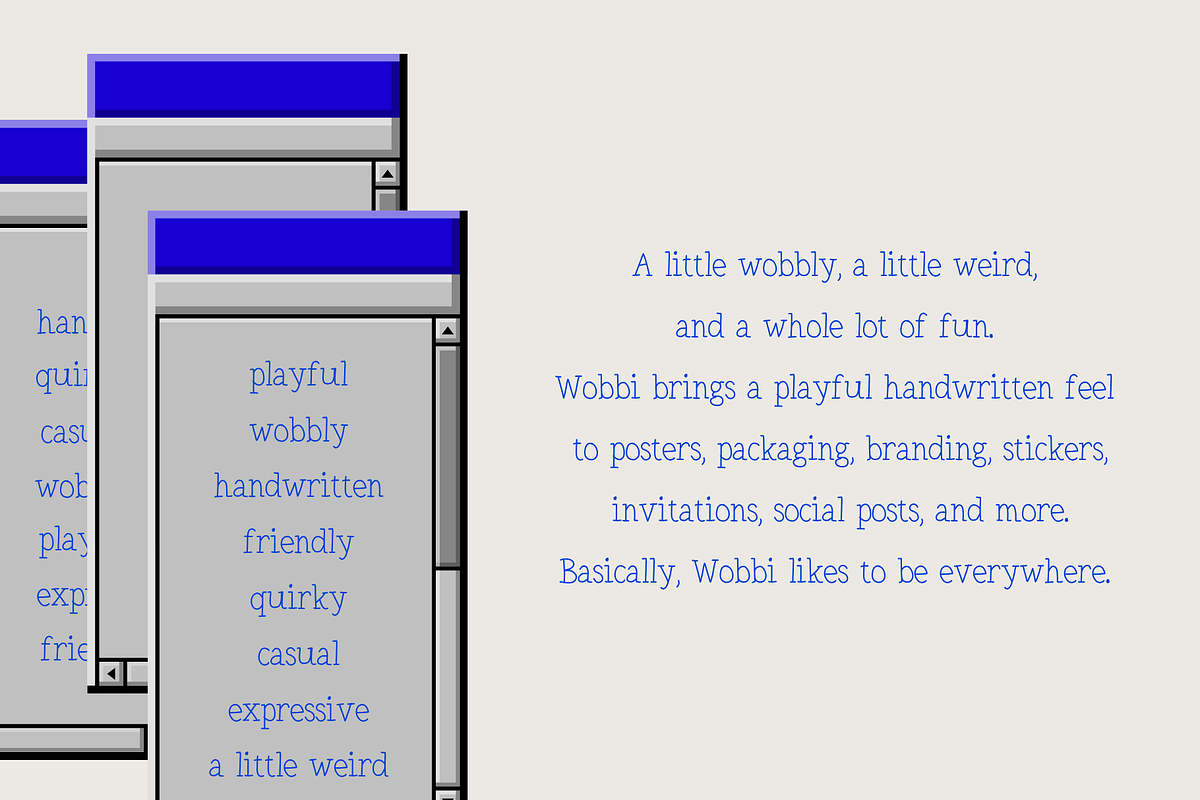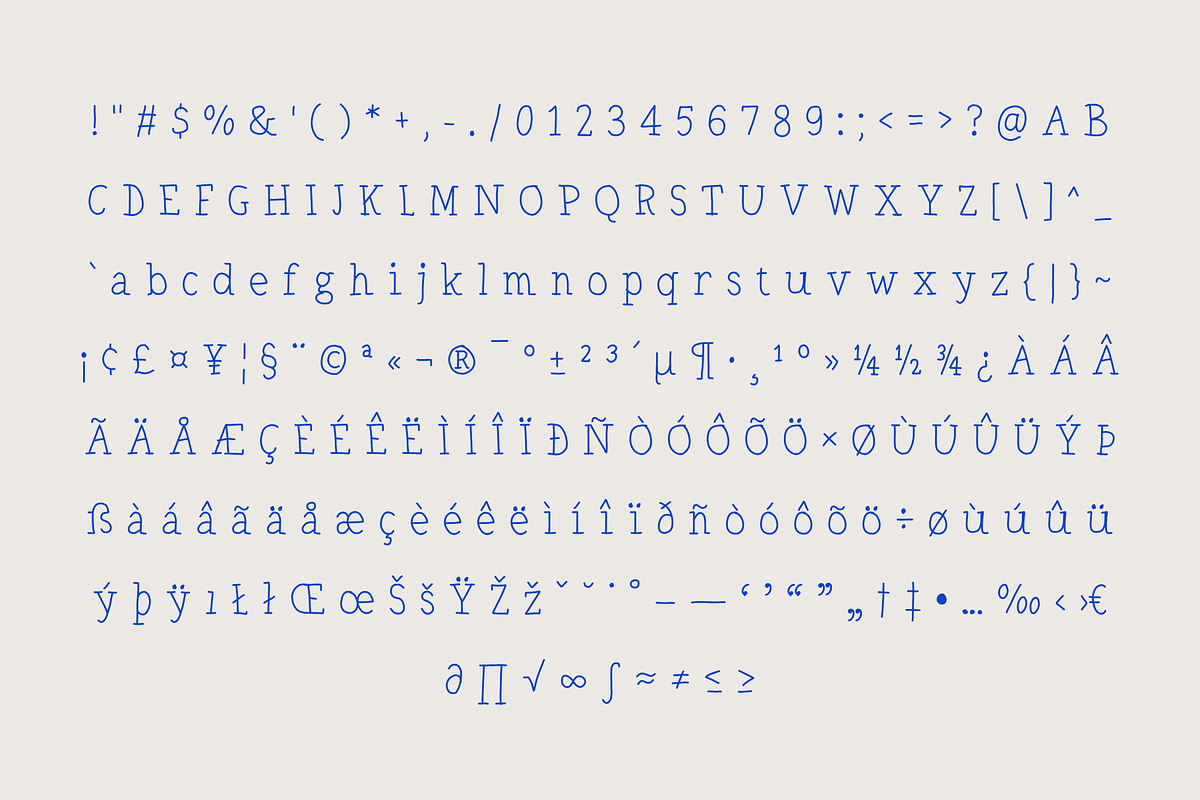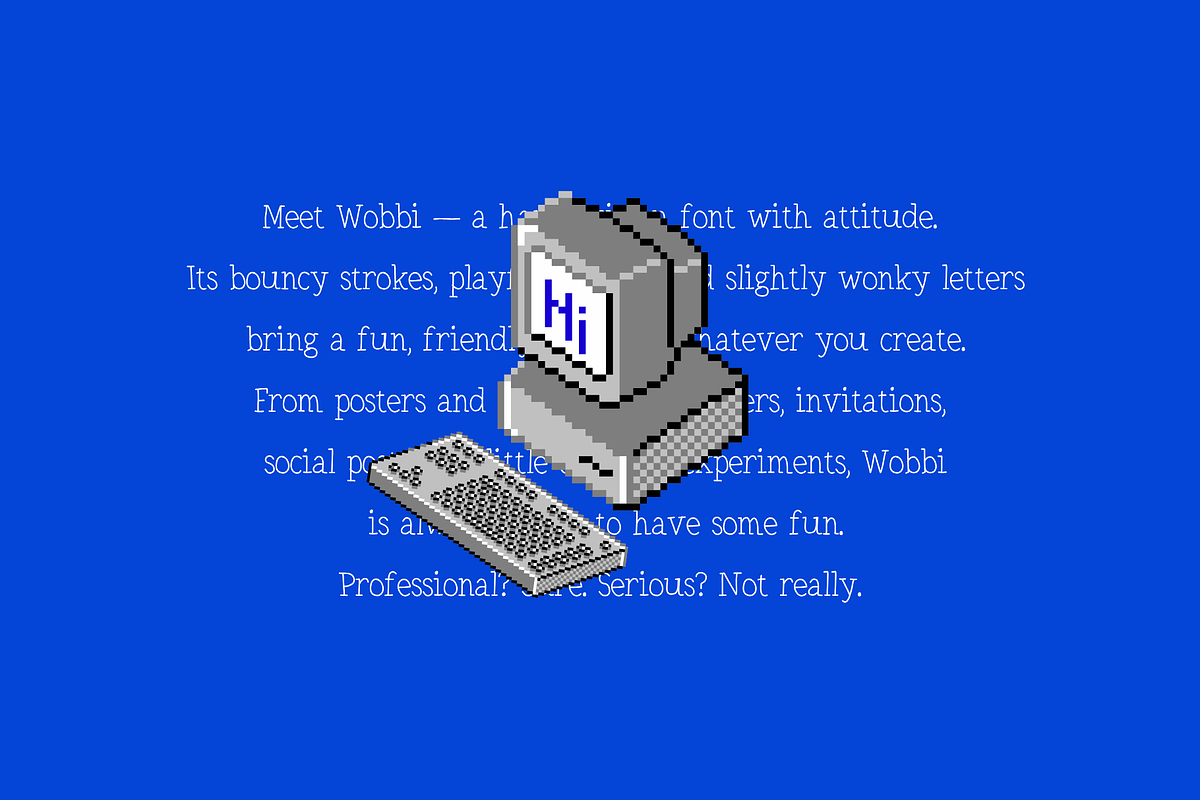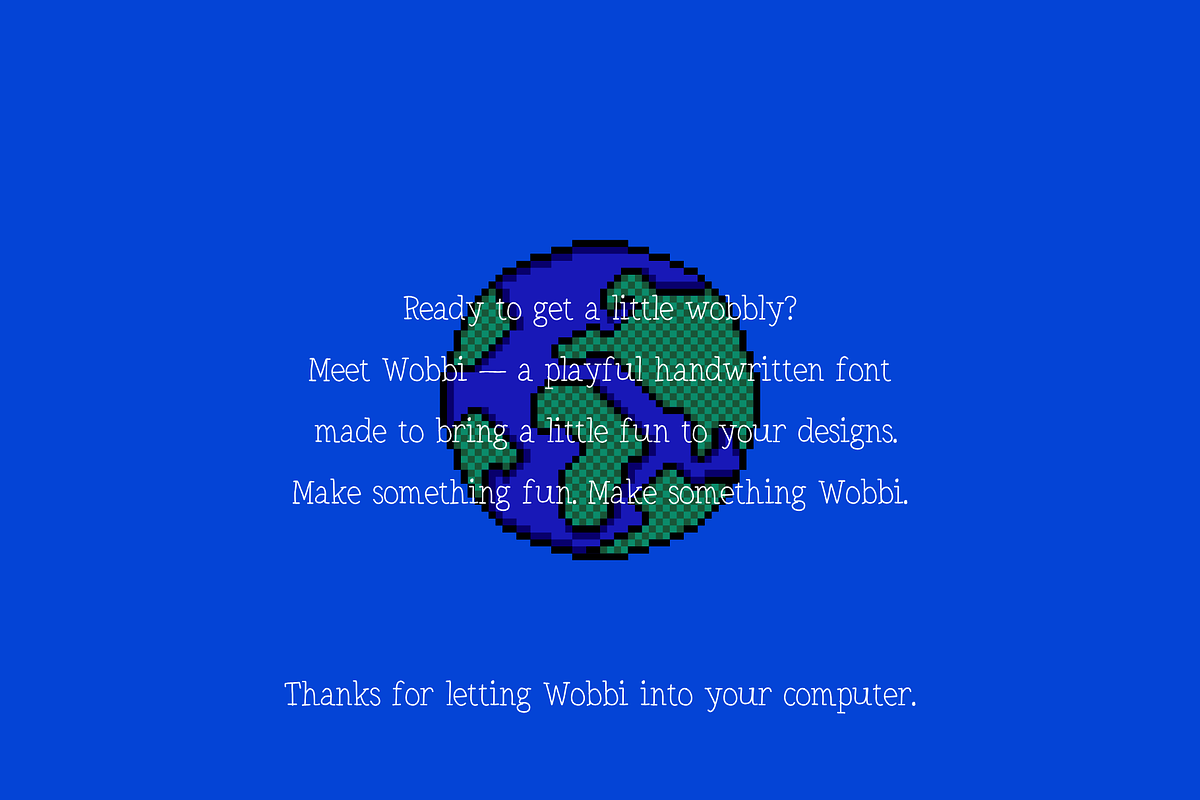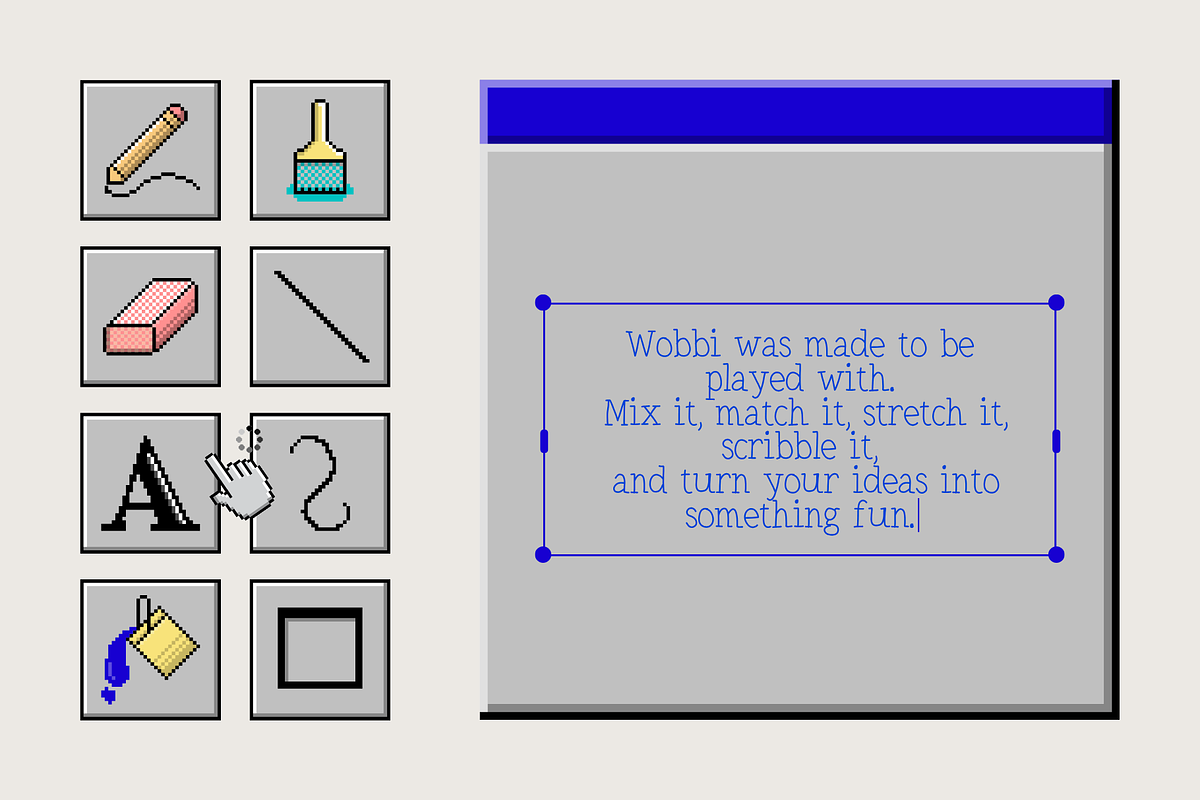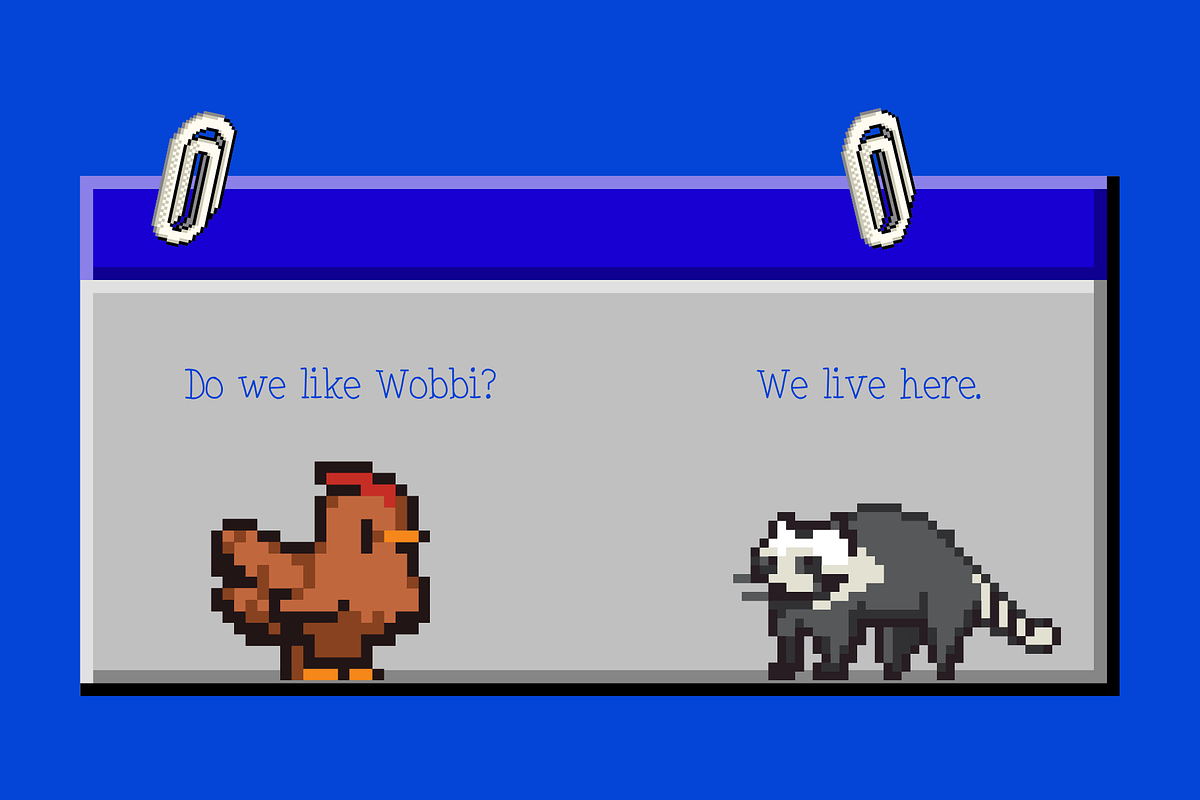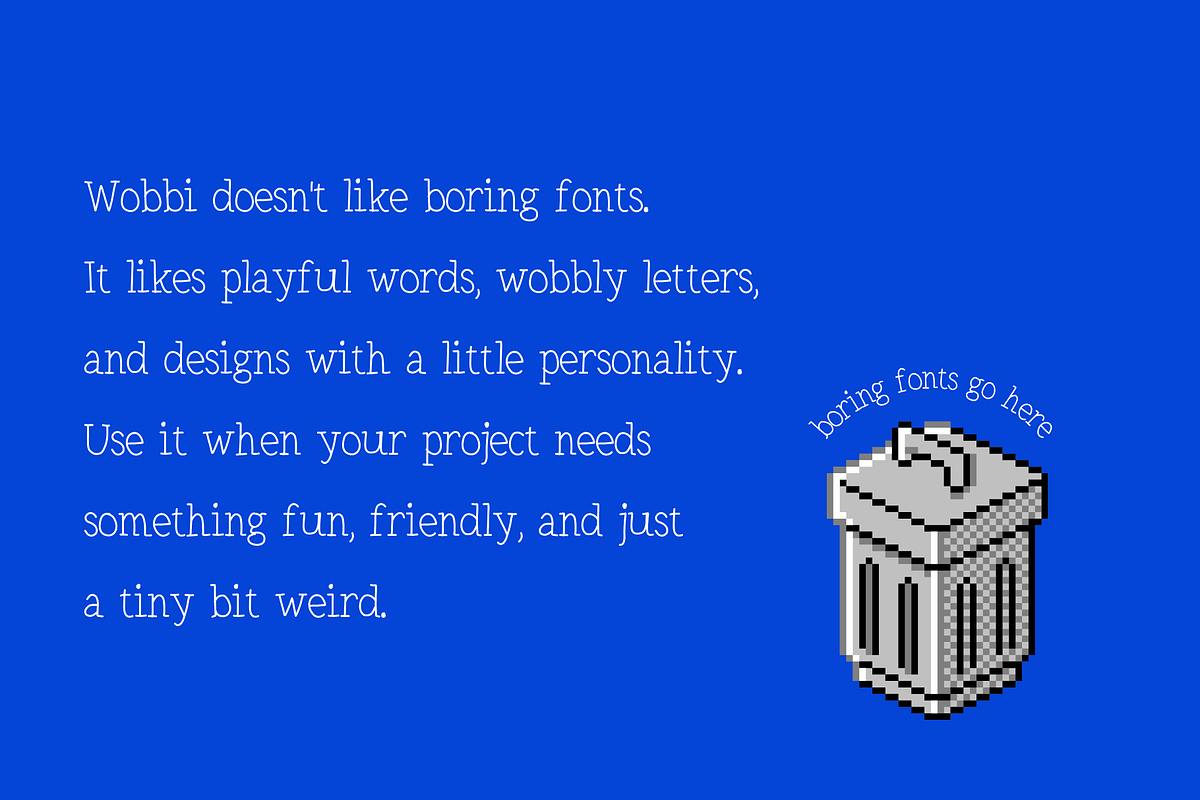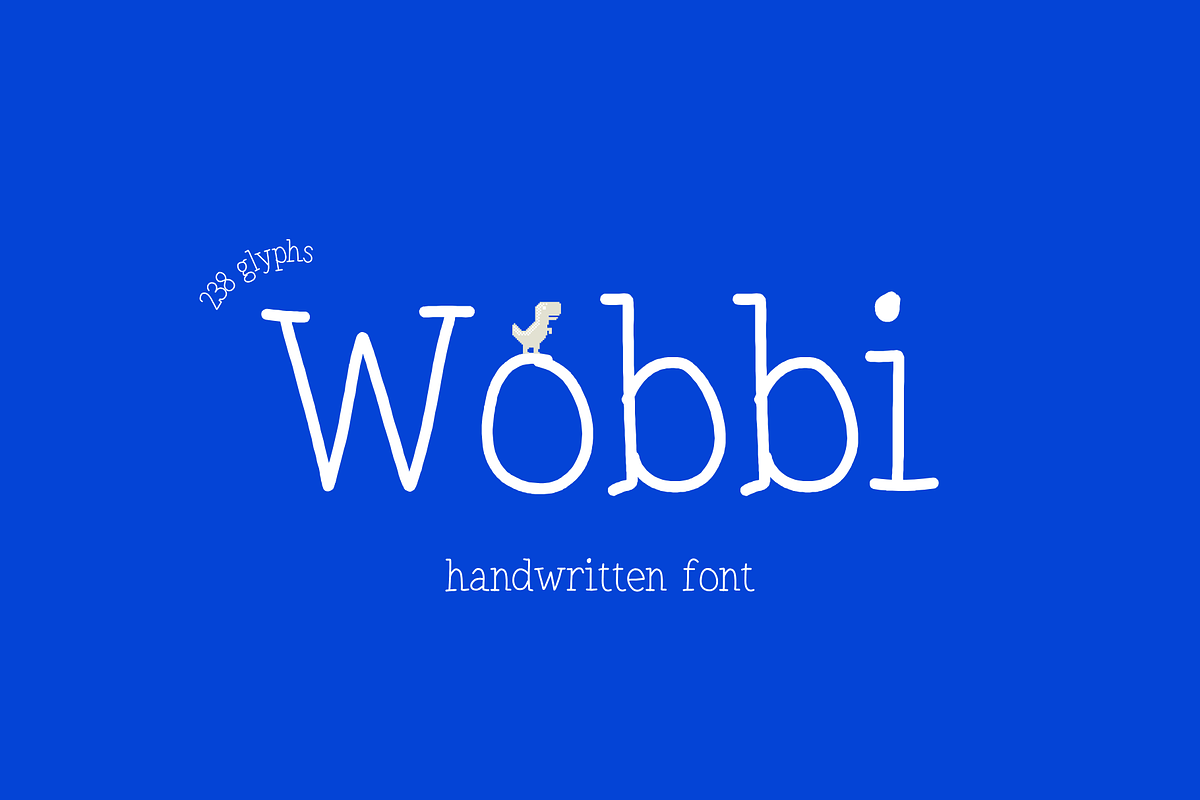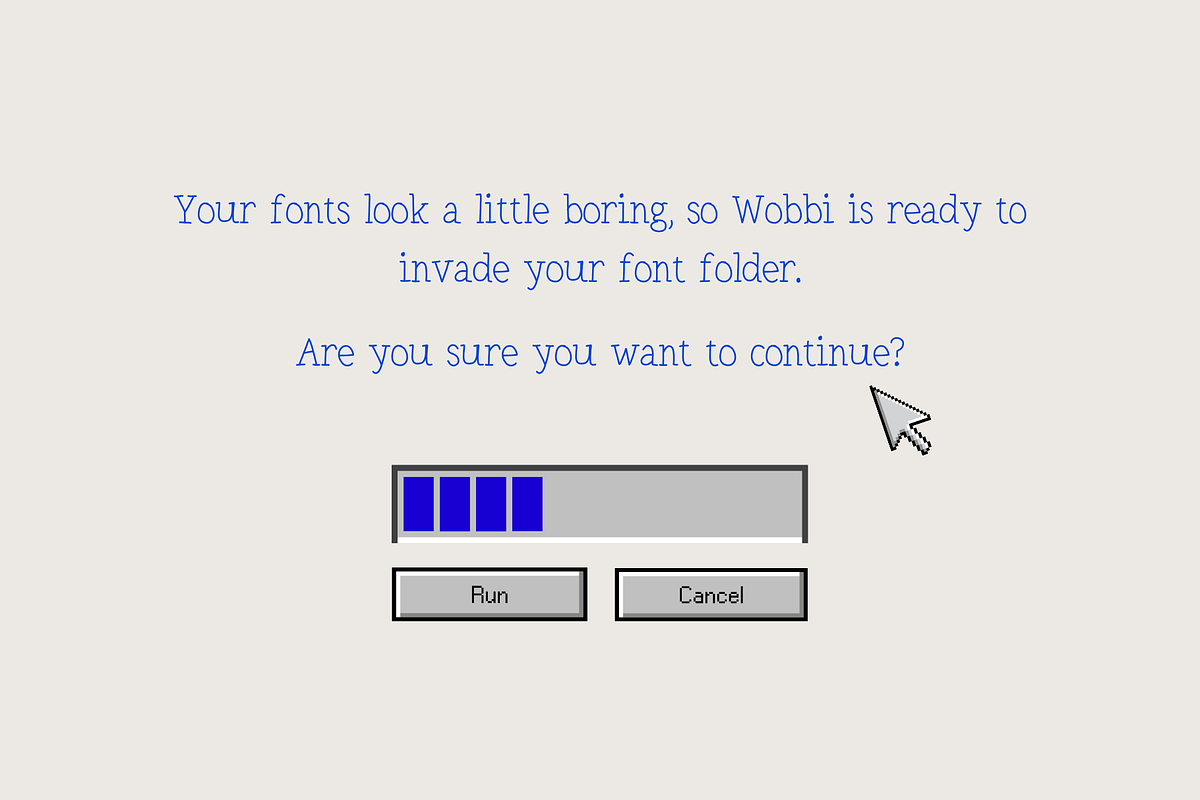
Wobbi – Playful Handwritten Serif
Wobbi is a playful handwritten serif font with bouncy strokes, slightly wonky letters, and a whole lot of personality. Inspired by old-school computer nostalgia, Wobbi brings a fun, quirky, hand-drawn feel to any design that needs something a little unexpected.
This handwritten font is perfect for branding, packaging, stickers, posters, invitations, greeting cards, and social media graphics — basically anywhere your project could use a bit more charm.
Professional? Sure. Serious? Not really. Wobbi was made to be played with.
238 Glyphs
Uppercase & Lowercase Letters
Multilingual Support (accents included) — great for international and Latin-based language projects